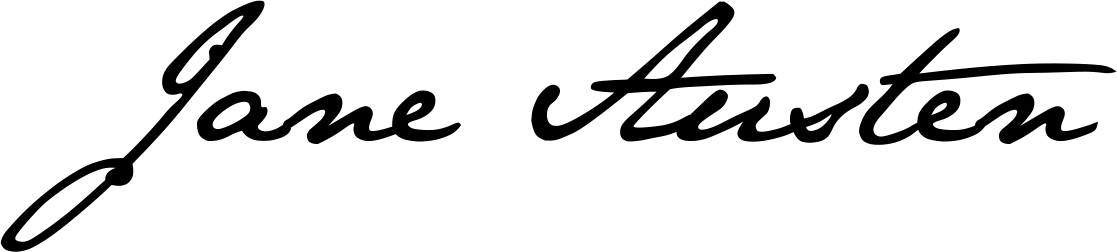
Jane Austen Font
Designed byPia Frauss
Wanna give life to your writing without using any additional design elements? A script font can do the trick! This font is called Jane Austin and as the name suggests, it will remind the reader of the old-time classics literature. You can use this elegant font for classic novel titles, movie posters, letters, invitation cards, and wedding banners.